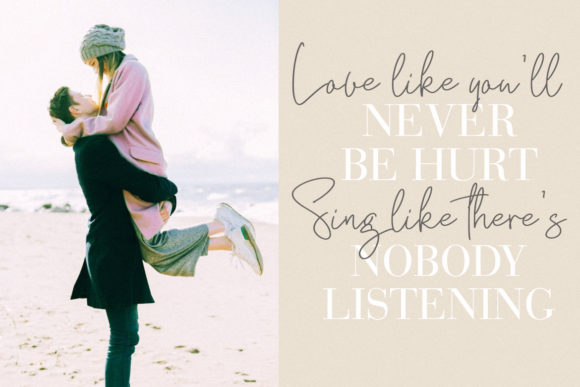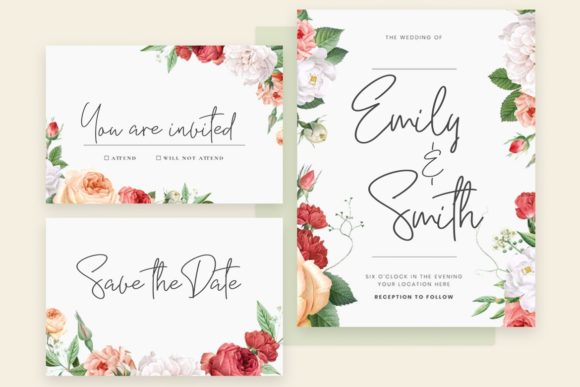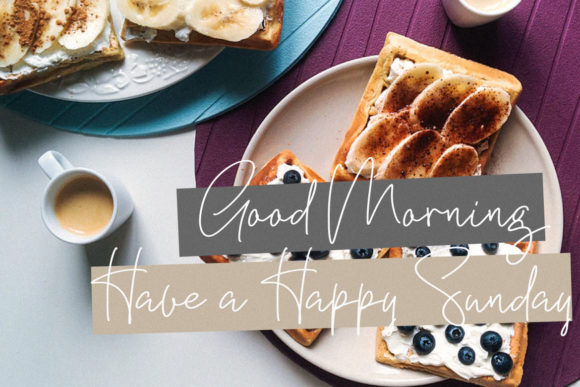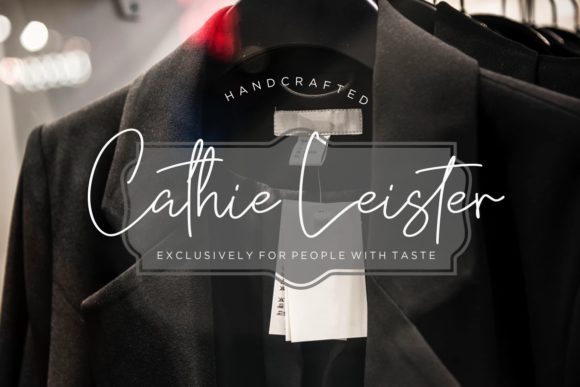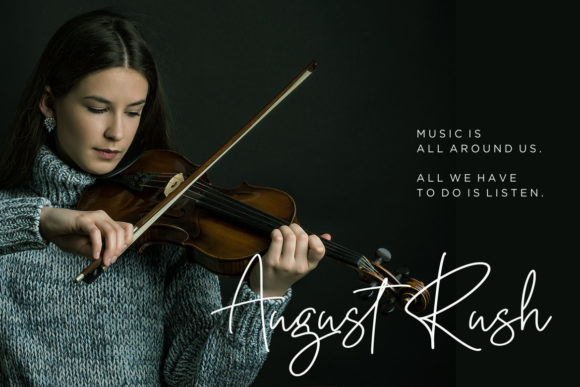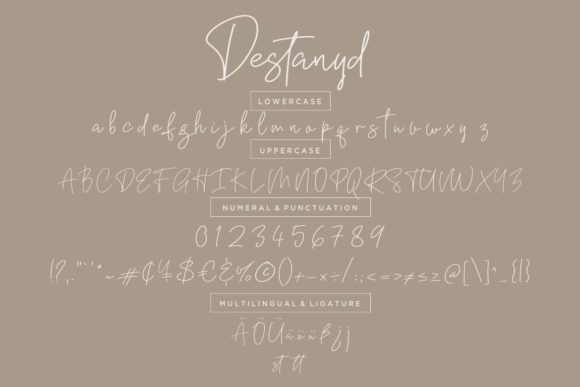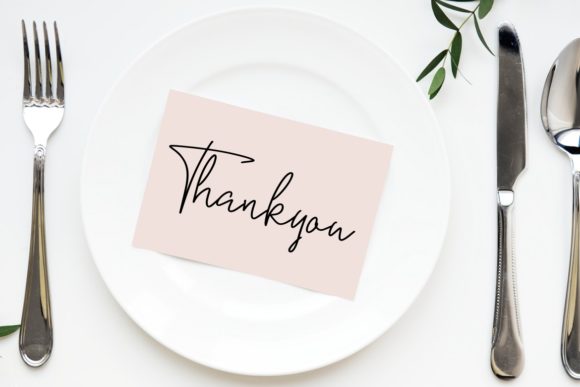
HomeScript FontsDestanyd Font Script Fonts Destanyd Font FacebookXPinterestWhatsApp Destanyd Font Poster 2 Destanyd Font Poster 3 Destanyd Font Poster 4 Destanyd Font Poster 5 Destanyd Font Poster 6 Destanyd Font Poster 7 Destanyd Font Poster 8 About Destanyd Font Destanyd combines authenticity and elegance into one truly stunning script, making it the perfect crafting font! DOWNLOAD ON CREATIVE FABRICAThis font is sold and delivered by Creative Fabrica. Font Canyon may earn a commission if you buy through this link. People also explored Cheerful Font Mawar Flower Monogram Font Haylin Script Font Malona Font Monarcha Amazing Mother Font White Cotton Font Darlington Simfony Sign Font 384 0 TagsDestanyd Font Previous articleDeathblood FontNext articleSoulmater Font LEAVE A REPLY Cancel reply Comment: Please enter your comment! Name:* Please enter your name here Email:* You have entered an incorrect email address! Please enter your email address here Website: Save my name, email, and website in this browser for the next time I comment. Personal Use Free Little Things Duo Personal Use Free Read more about this font Leadent Script Personal Use Free Read more about this font Zroest Personal Use Free Read more about this font Zelega Zenega Personal Use Free Read more about this font BLOG Best Fonts for YouTube Videos: Make Your Thumbnails Stand Out Best Fonts for YouTube Videos: Make Your Thumbnails Stand Out Choosing the right font can make a massive difference in how your YouTube videos perform.... Exploring Font Trends To increase your work productivity, choose the most readable fonts. How to Install and Use Fonts on Windows, macOS, and Web Projects